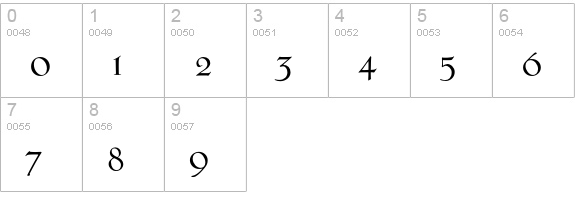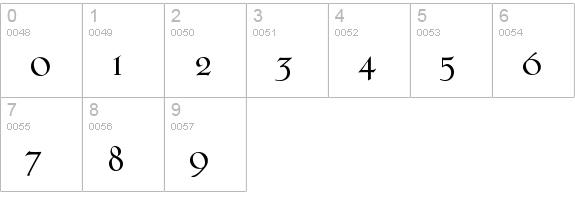
PhaistosRoman Font Details
Introducing PhaistosRoman, a stunning font that effortlessly marries classical elegance with modern sophistication. This typeface exudes a timeless charm, making it the perfect choice for those seeking a versatile and captivating font for their design projects. PhaistosRoman boasts a unique blend of crisp lines and delicate curves, delivering a harmonious balance that catches the eye and commands attention. Its carefully crafted letterforms exude a sense of refinement and professionalism, making it an excellent choice for a wide range of applications, from branding and advertising to editorial design and beyond. With its extensive character set, PhaistosRoman offers exceptional versatility, allowing you to effortlessly express your creativity and convey your message with clarity and style. From headlines to body text, this font adapts effortlessly to any context, ensuring a seamless visual experience for your audience. What sets PhaistosRoman apart is not just its impeccable design, but also the fact that it is freely available to download at FontsMarket.com. This means that you can add this extraordinary font to your collection without breaking the bank, opening up a world of creative possibilities without any limitations. Whether you're a seasoned designer or just starting out, PhaistosRoman is a font that will inspire you to push the boundaries of your creativity. Its timeless beauty and accessibility make it an essential addition to any designer's toolkit. So why wait? Discover the elegance and versatility of PhaistosRoman today and elevate your designs to new heights. Download it for free at FontsMarket.com and let your creativity soar.